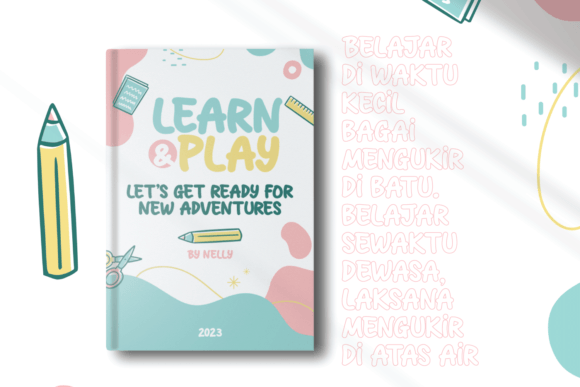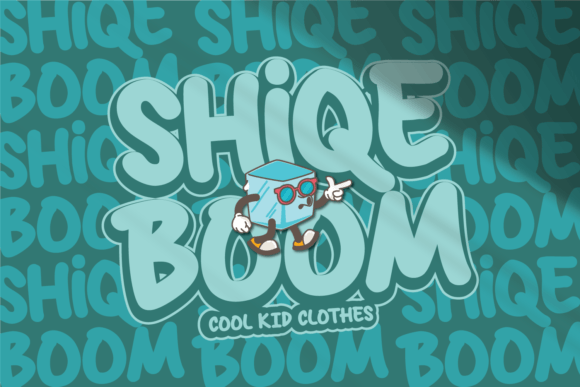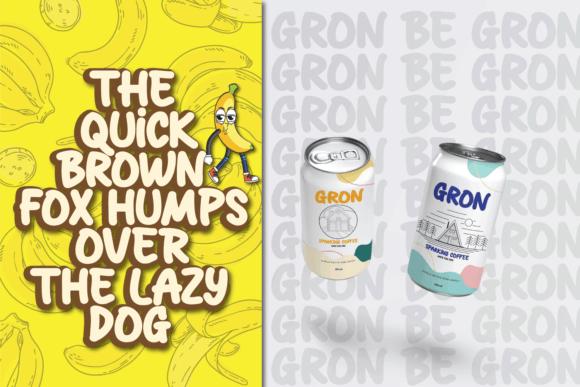
Introduction to Pisang Font
Introducing β€œPisang,” a whimsically handwritten font that adds a burst of vibrant energy to your projects, created with the lively strokes of a marker.
This font is a playful testament to the spirit of fun, joy, and cheerfulness, falling under the category of a bold Comic Sans style β€œPisang” is the perfect typographic companion for anything celebratory, making it ideal for children’s themes, birthdays, and a myriad of other joyous occasions.
Key Features of Pisang Font